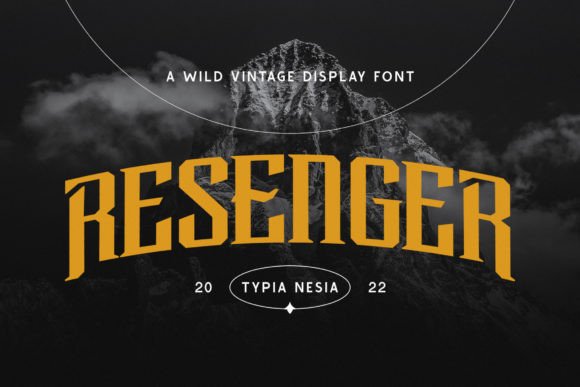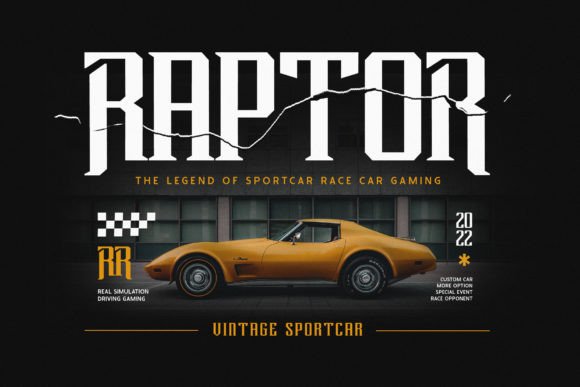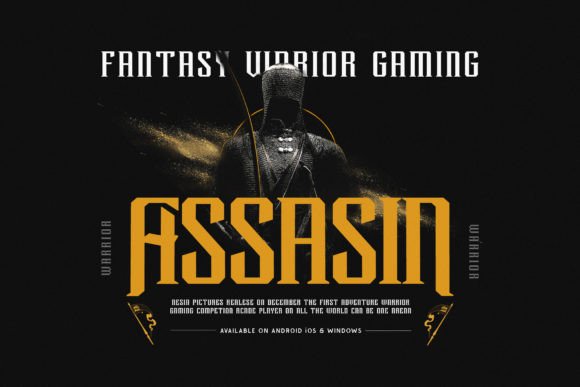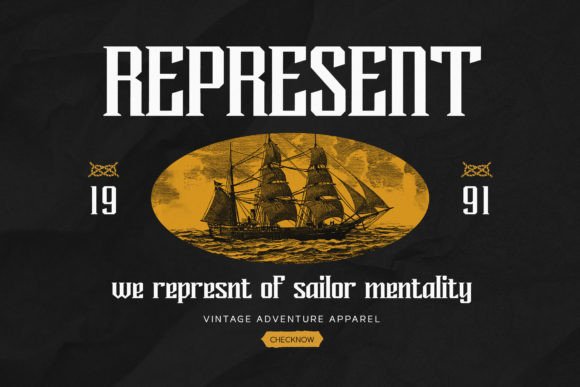
Resenger Font: Bold Vintage Slab Serif for Adventure & Logo Design
About the Resenger Font
The wait is over! The incredible Resenger Font is now available for your design toolkit. Resenger – wild vintage adventure camp – mountain hiking condensed slab serif font.
Suitable for any design needs: logo, branding, modern advertising design, vintage garage design, adventure/mountain hiking brand, hardcore music, animation or movie, logos, retro summer poster quote, book/novel cover title, editorial design, website/blog, card, and more.
Resenger’s condensed slab serif design excels in headlines, posters, and short, impactful branding elements. Its vintage-inspired aesthetic makes it ideal for projects emphasizing adventure, ruggedness, or a retro feel. Avoid using it for large blocks of body text or UI elements; its condensed nature and strong character reduce readability in extended passages.
Pairing Resenger effectively requires considering its bold personality. A clean sans-serif like Montserrat or a geometric sans-serif such as Futura would create a strong contrast, modernizing the vintage feel. For a warmer, more classic pairing, consider a serif like Playfair Display.
The overall personality of Resenger is bold, adventurous, and slightly rebellious, perfectly suited for brands communicating a sense of grit, exploration, or a vintage-inspired aesthetic.
Resenger Font Usage Examples
Resenger Font Example